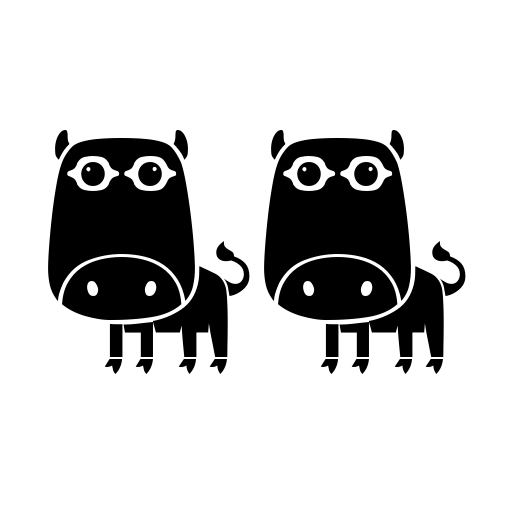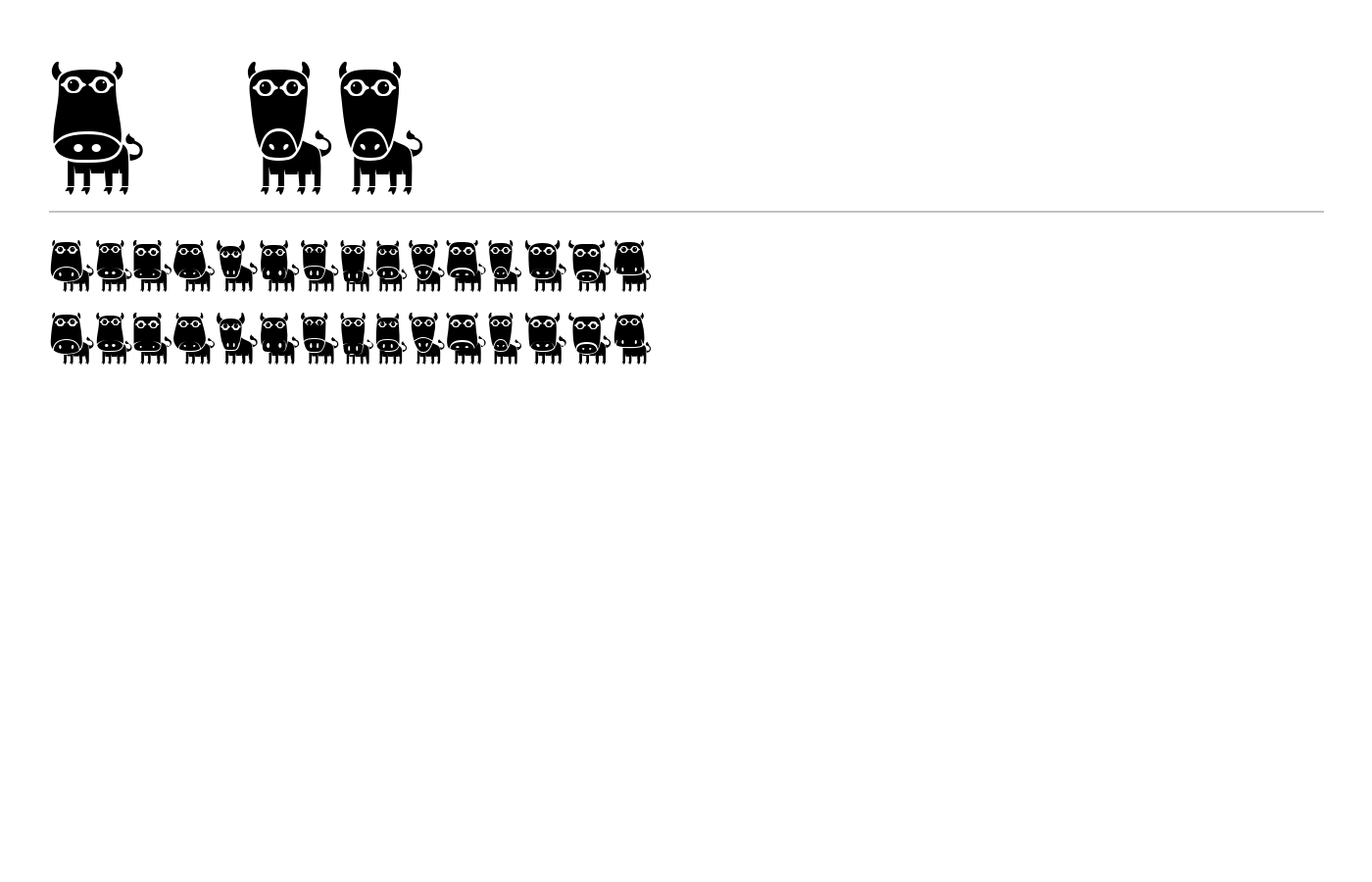
Bulls Font is a playful and whimsical typeface featuring charming cartoon-like bull characters instead of traditional letters. Its bold, solid shapes and quirky details give it a fun, friendly personality, making it perfect for kid-friendly designs, logos, or branding that aims to be approachable and humorous. This font works best in headlines, posters, and creative projects where a lighthearted and unique visual impact is desired.
Bulls Font
About Bulls Font
| Font family | Bulls Font |